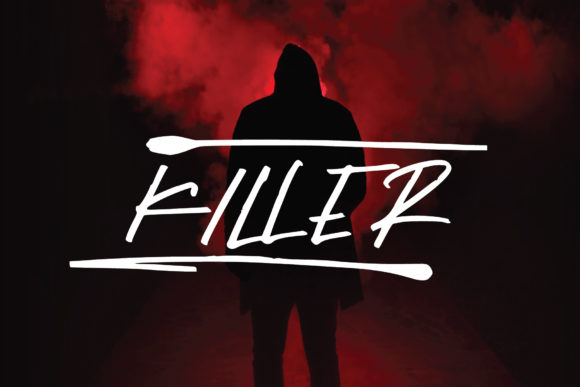
Killer Font: The Ultimate Choice for Modern and Classic Designs
In the world of typography, fonts play a crucial role in making a design stand out. With thousands of fonts available, choosing the right one can be overwhelming. However, if you’re looking for a font that combines classic style with a friendly feel, look no further than Killer Font. In this article, we’ll explore the features and benefits of Killer Font, and why it’s the perfect choice for making original and outstanding designs.
What is Killer Font?
Killer Font is a casual and modern script font that boasts an incredibly classic style. Its unique blend of traditional and contemporary elements makes it an excellent choice for designers looking to create something new and exciting. The font features a friendly feel that’s perfect for a wide range of design projects, from branding and advertising to packaging and digital media.
Key Features of Killer Font
- Classic Style: Killer Font features an incredibly classic style that’s reminiscent of traditional script fonts.
- Modern Twist: Despite its classic style, Killer Font has a modern twist that makes it perfect for contemporary designs.
- Friendly Feel: The font has a friendly feel that’s perfect for creating approachable and inviting designs.
- Highly Versatile: Killer Font is highly versatile and can be used for a wide range of design projects.
Benefits of Using Killer Font
So, why choose Killer Font for your design projects? Here are just a few benefits of using this amazing font:
- Stand Out Designs: Killer Font is designed to help you create original and outstanding designs that stand out from the crowd.
- Easy to Read: The font is highly legible, making it perfect for use in body text, headings, and titles.
- Customizable: Killer Font is highly customizable, allowing you to adjust the font size, color, and style to suit your design needs.
In conclusion, Killer Font is an amazing font that’s perfect for designers looking to create original and outstanding designs. With its classic style, friendly feel, and highly versatile nature, Killer Font is the ultimate choice for modern and classic designs. Whether you’re a graphic designer, digital designer, branding expert, or marketing professional, Killer Font is sure to become a staple in your design toolkit.